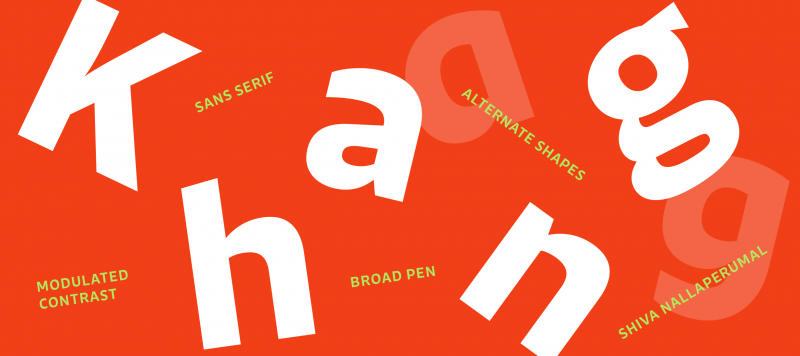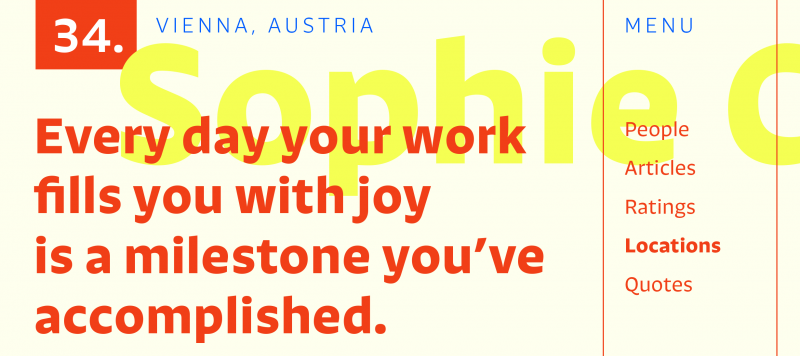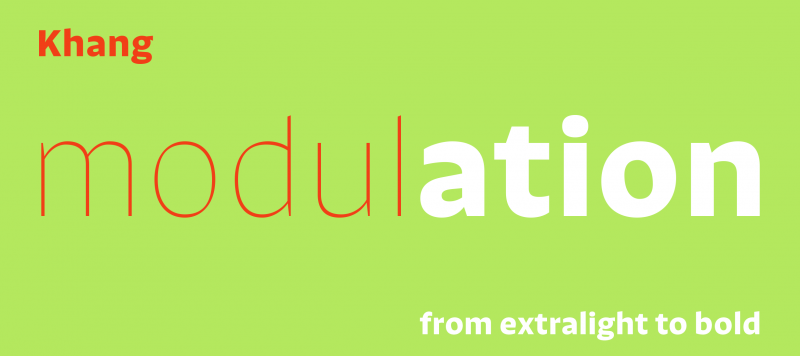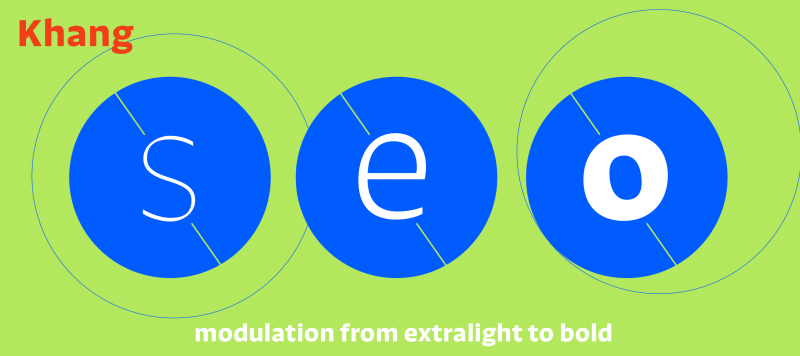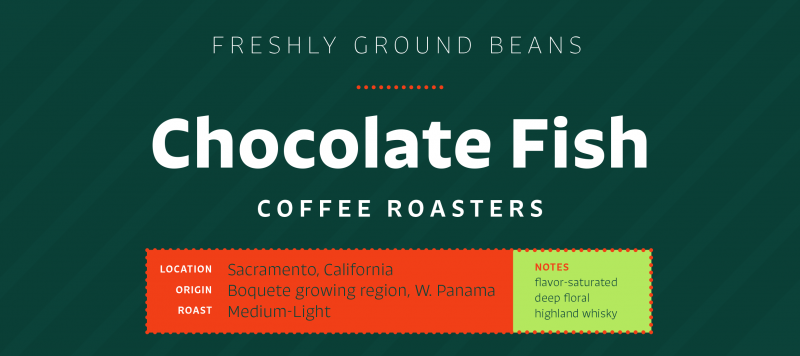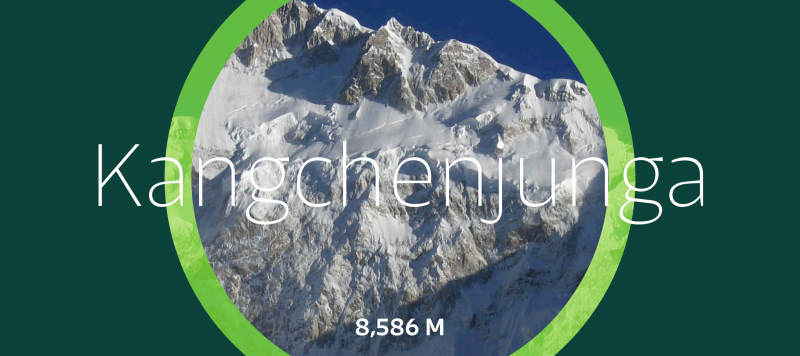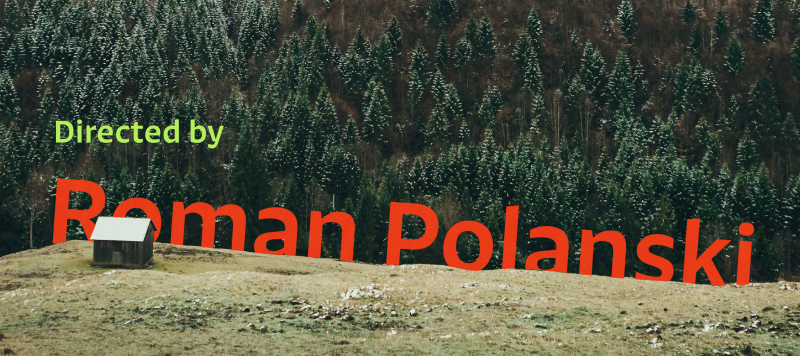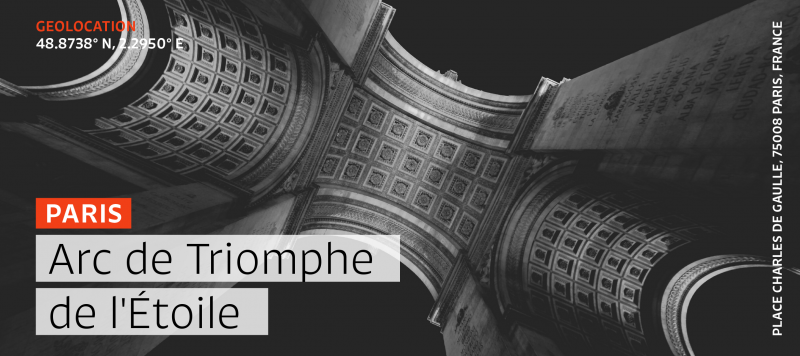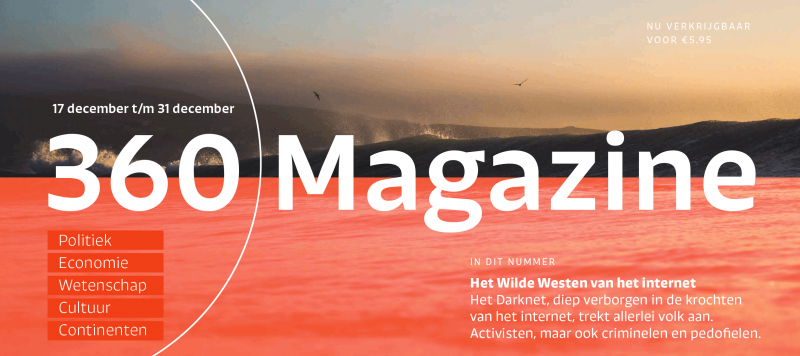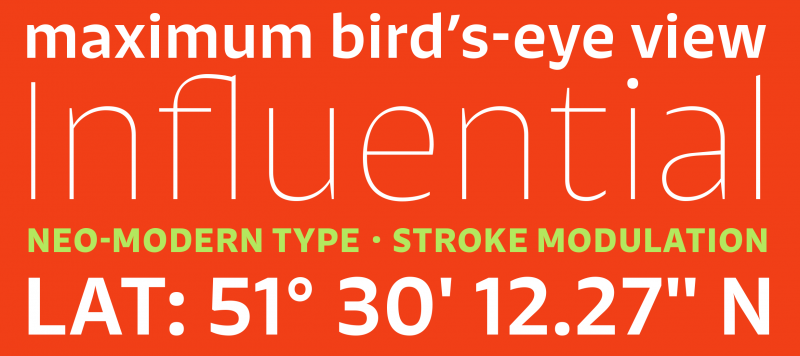
Khang is a sans serif family that is part of Shiva Nalleperumal’s investigations into monolinearity in type design. In this typeface, he fuses a monolinear sans’s structure with a kind of stroke modulation more common to broad-nib calligraphy. The Khang family has six weights that range from Extralight to Bold; even in the Extralight weight, the design’s stroke contrast is maintained. Khang is suitable both for long, comfortable reading and interesting display use. Its lowercase letters have a tall x-height, most strokes end with either horizontal or vertical lines, and all letters have open counterforms. Khang offers a few OpenType features that may prove helpful for Corporate Identity and Editorial designers: each font includes alternate single-storey “a” and “g” forms. These are accessible via a stylistic set in InDesign or in CSS, or as via the stylistic alternates feature in Illustrator. Khang also includes 15 f-ligatures, plus a “tt” ligature.
Selected and reviewed by Nina Stössinger for Typographica's Favorite Typefaces of 2015
Family Name Khang
Designer(s) Shiva Nallaperumal
Classification Sans